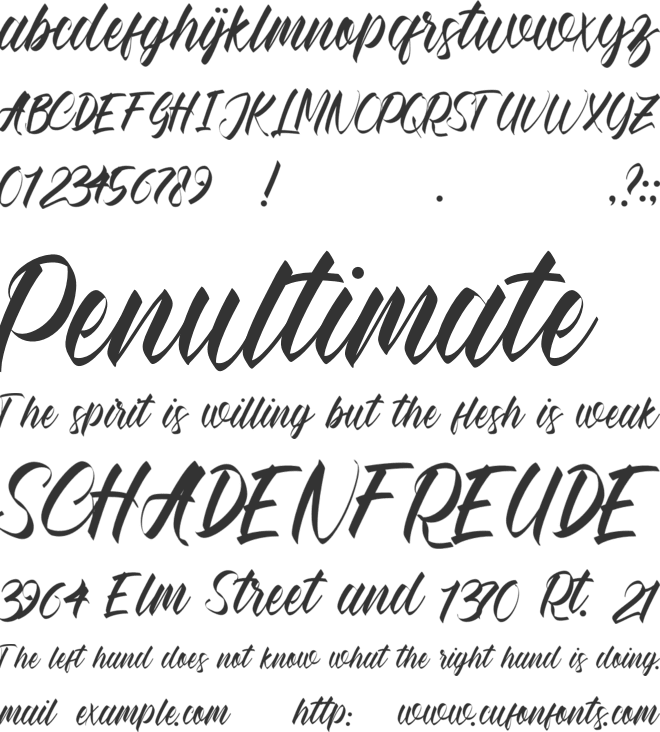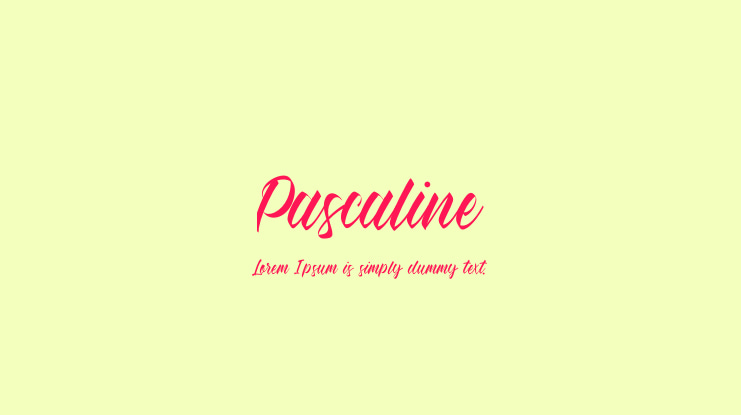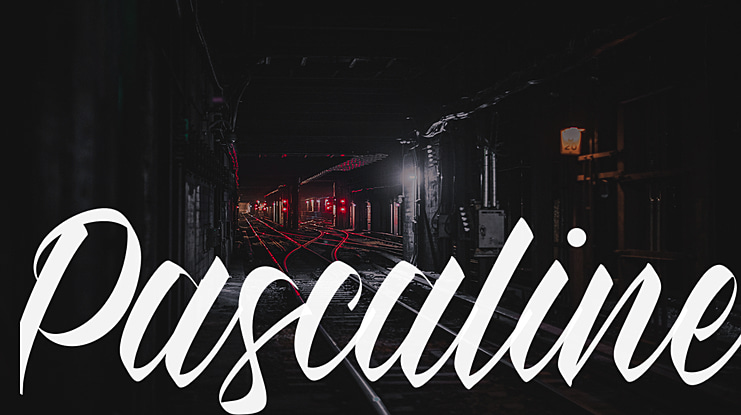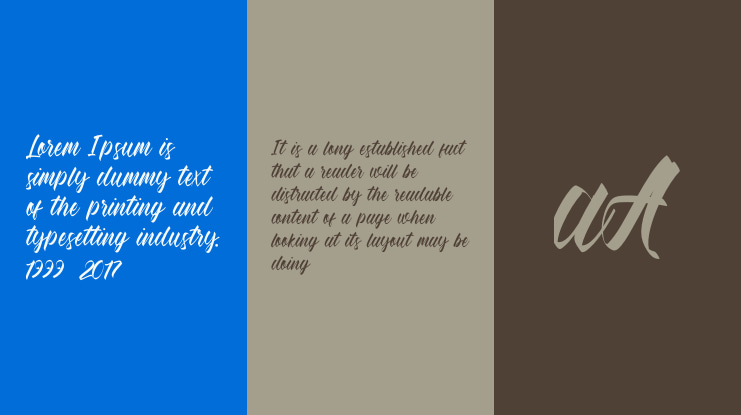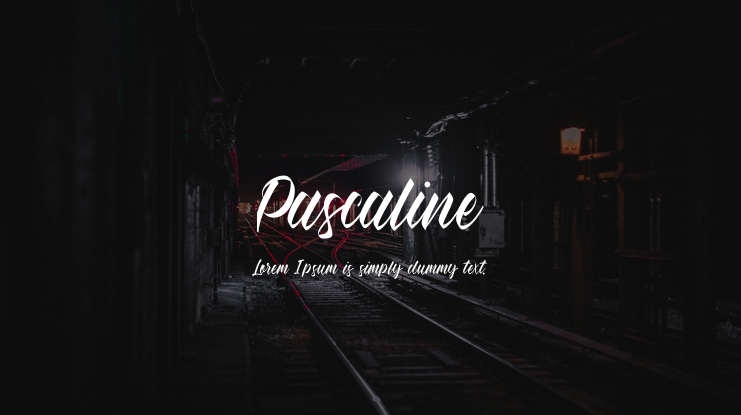
Pascaline Font
the latest style letters are perfect for wall displays, wedding invitations, social media post logos, advertisements, product packaging, product designs, labels, photography, watermarks, invitations, stationery, and any project that requires taste handwriting.
Pascaline font preview